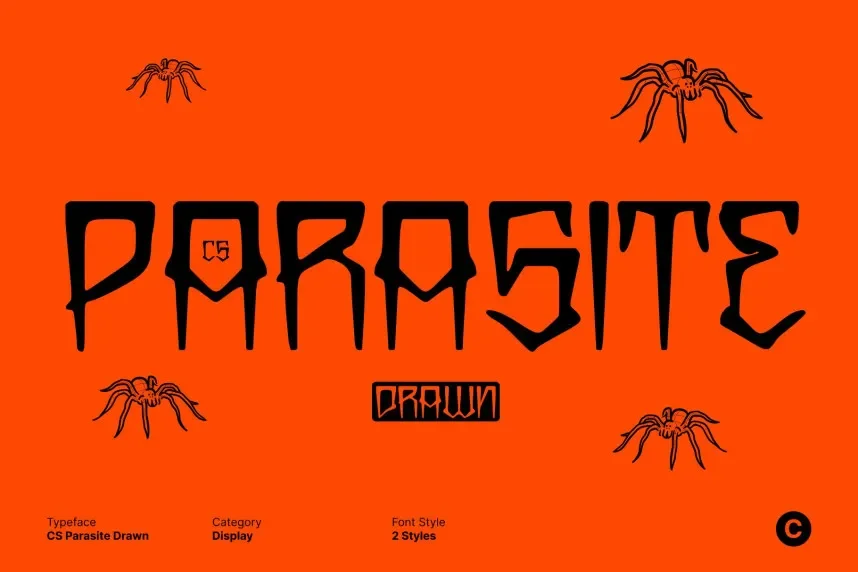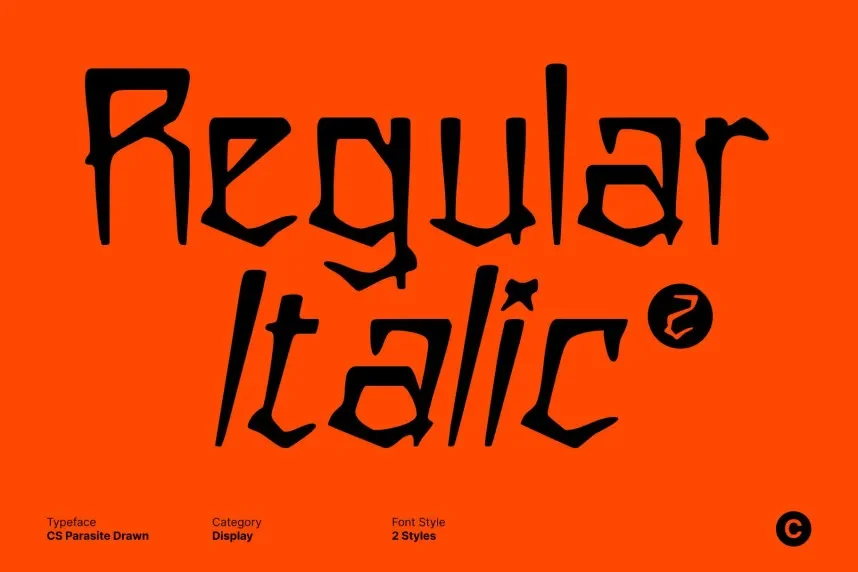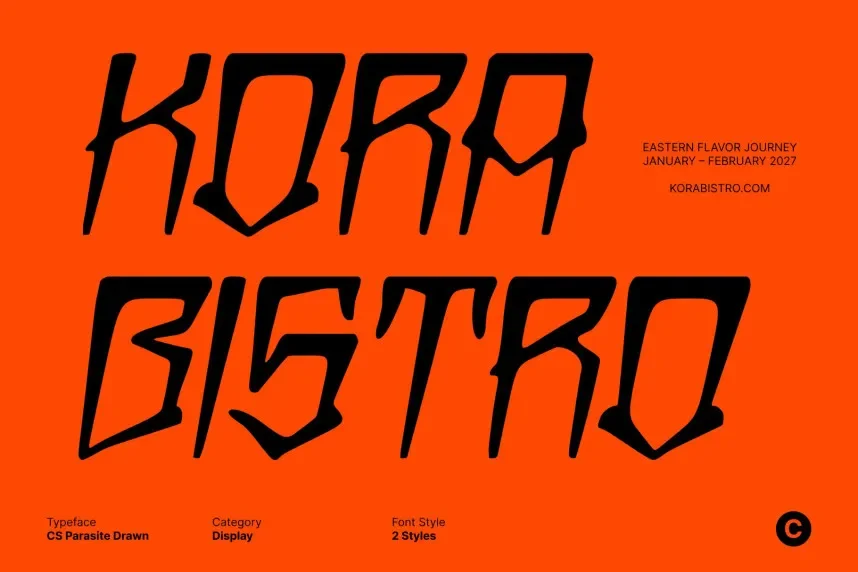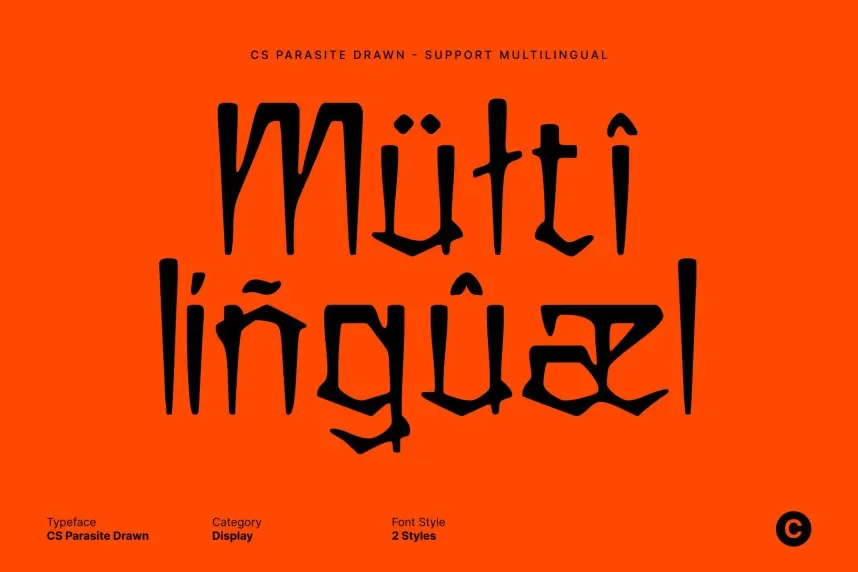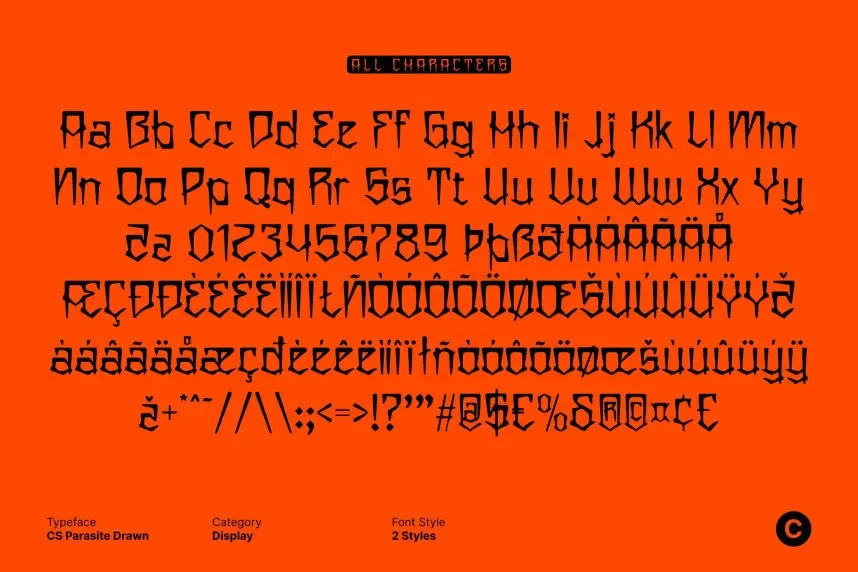
CS Parasite Drawn Font is a unique hand-drawn typeface with irregular strokes and playful forms. Its distinct, organic appearance makes it ideal for projects that require a creative and artistic touch, such as logos, posters, and editorial designs.
Best used for creative branding, event promotions, and logo design, CS Parasite Drawn Font pairs well with simpler sans-serif fonts for clarity. Available in TTF and OTF formats, it includes a commercial-use license. Always verify licensing for commercial use.